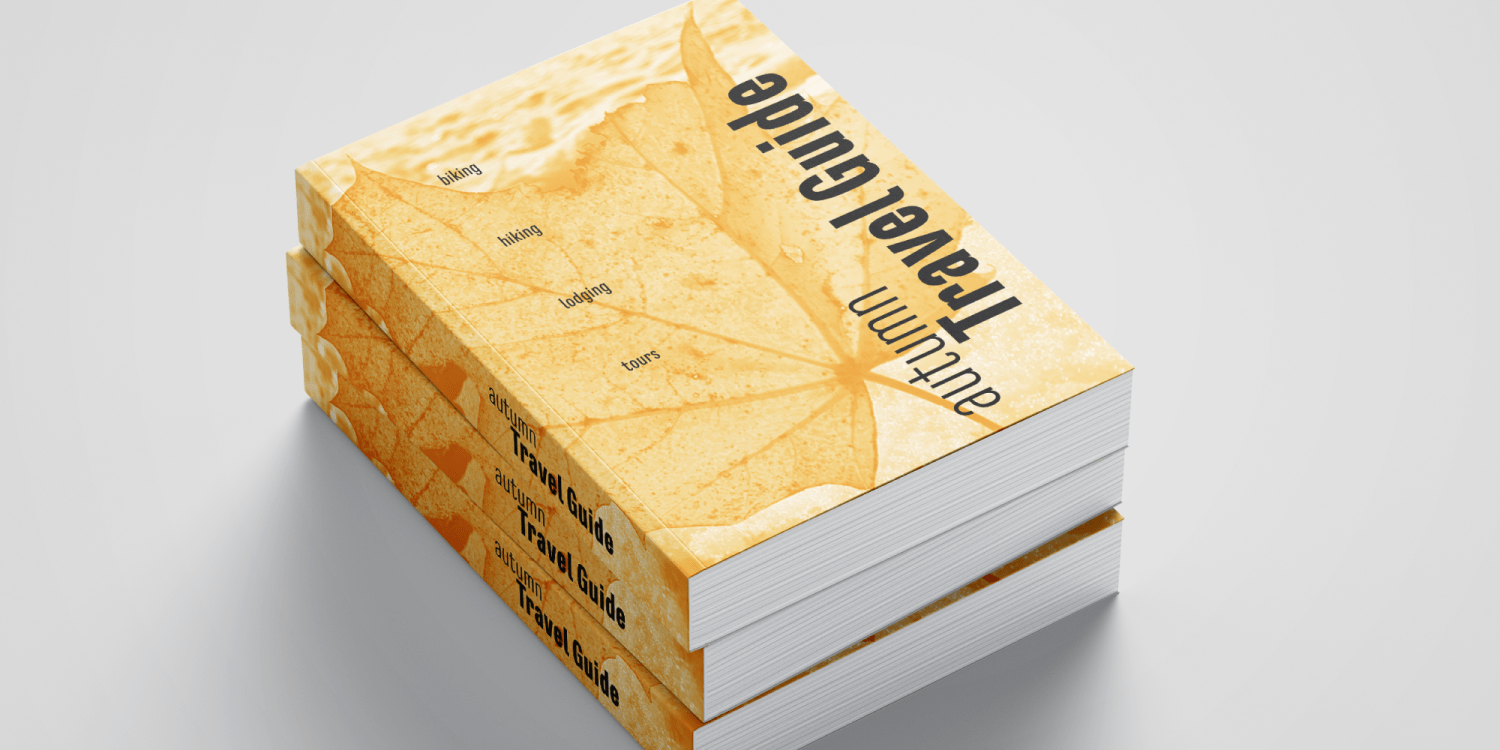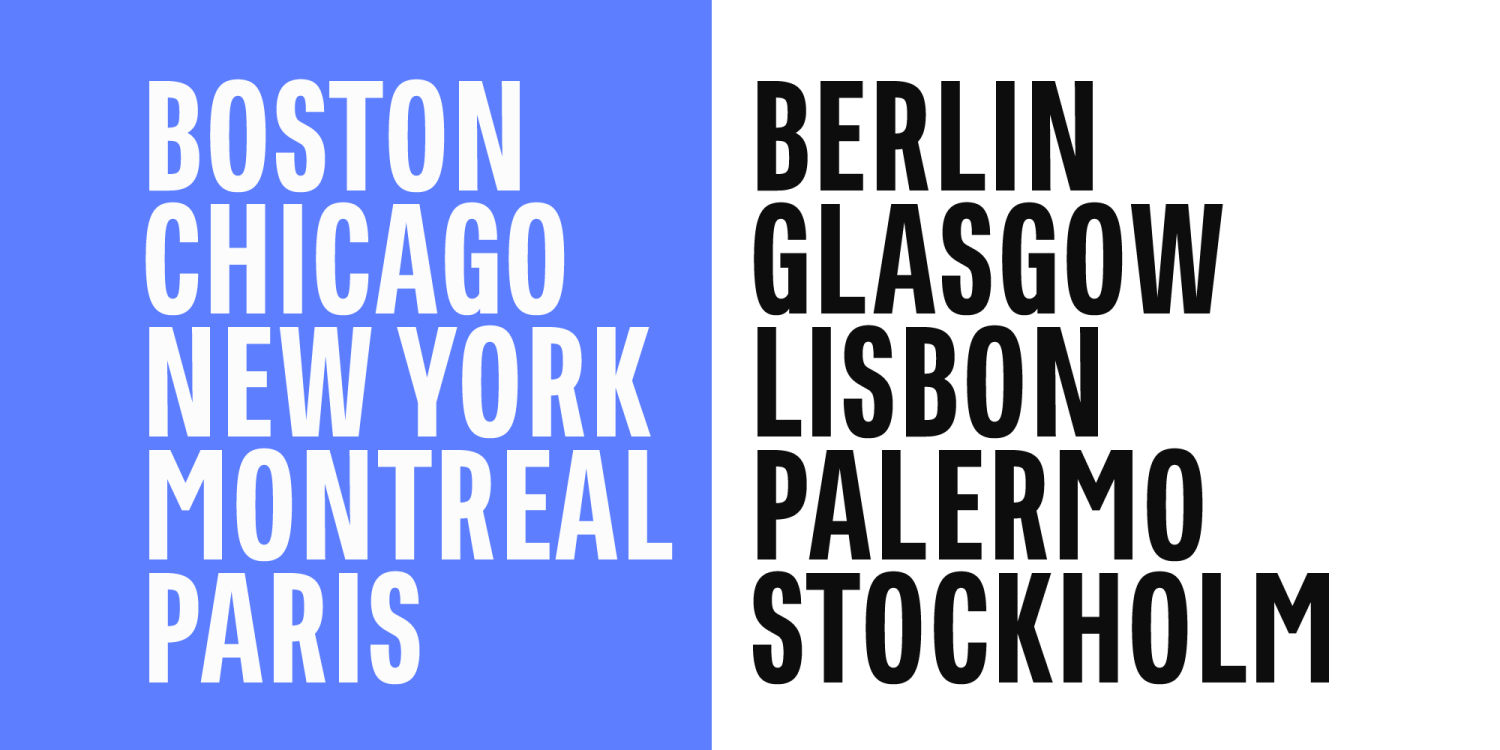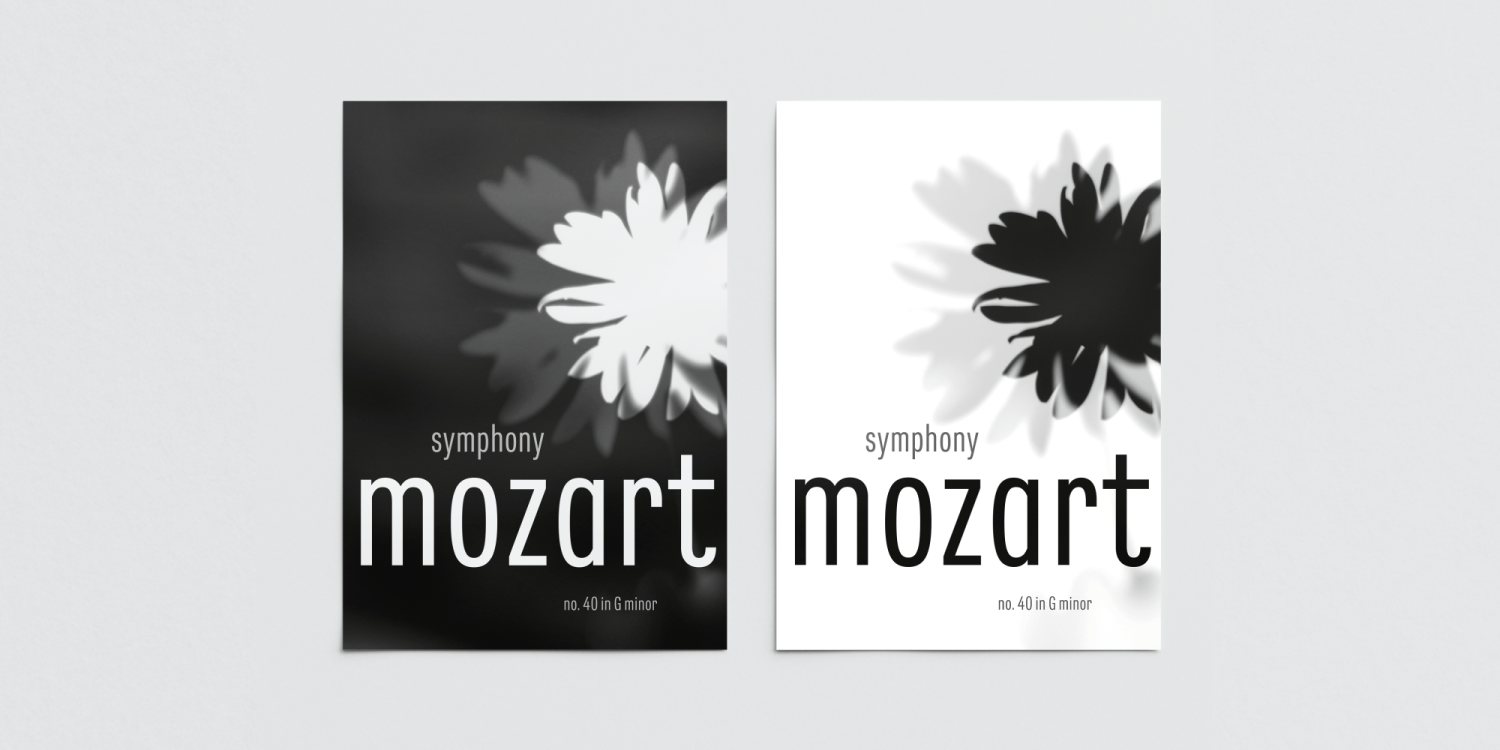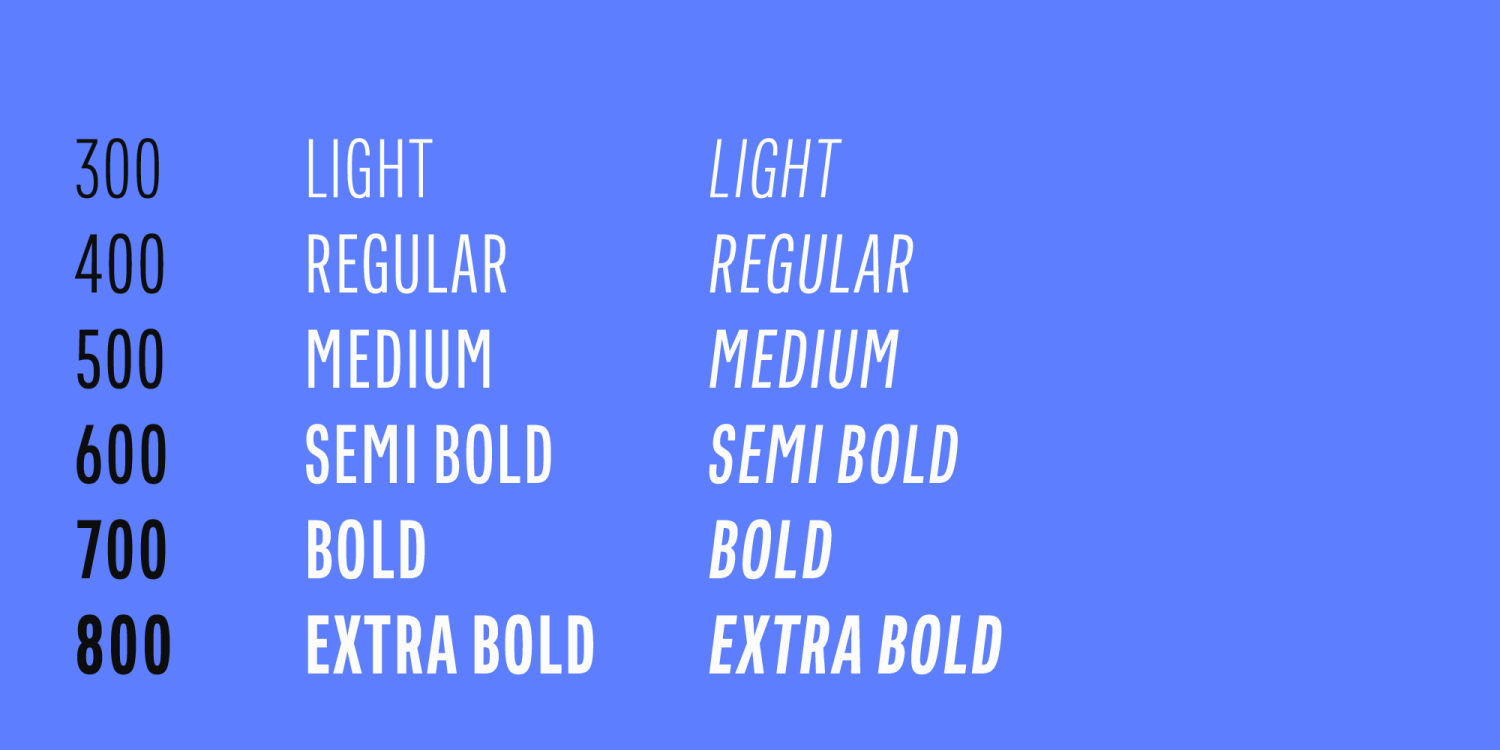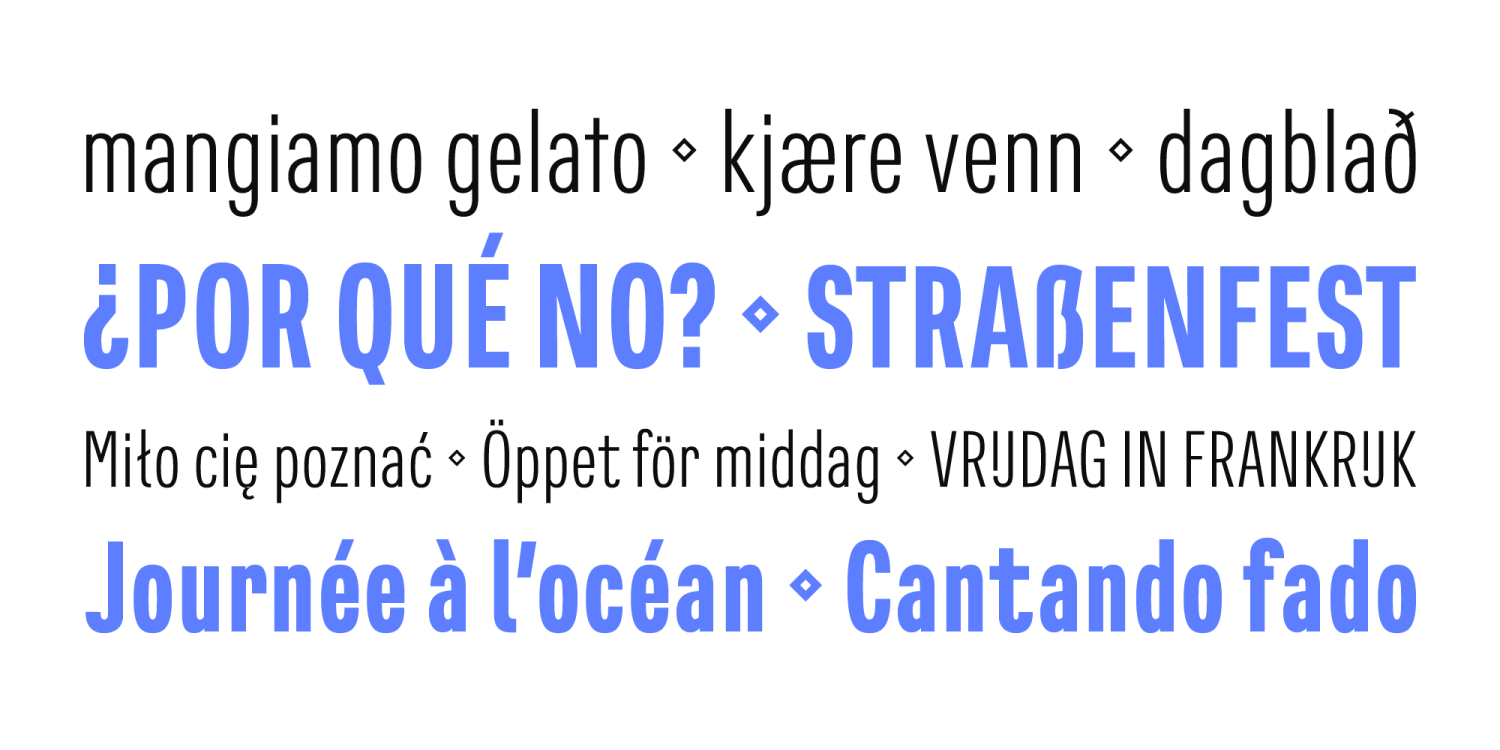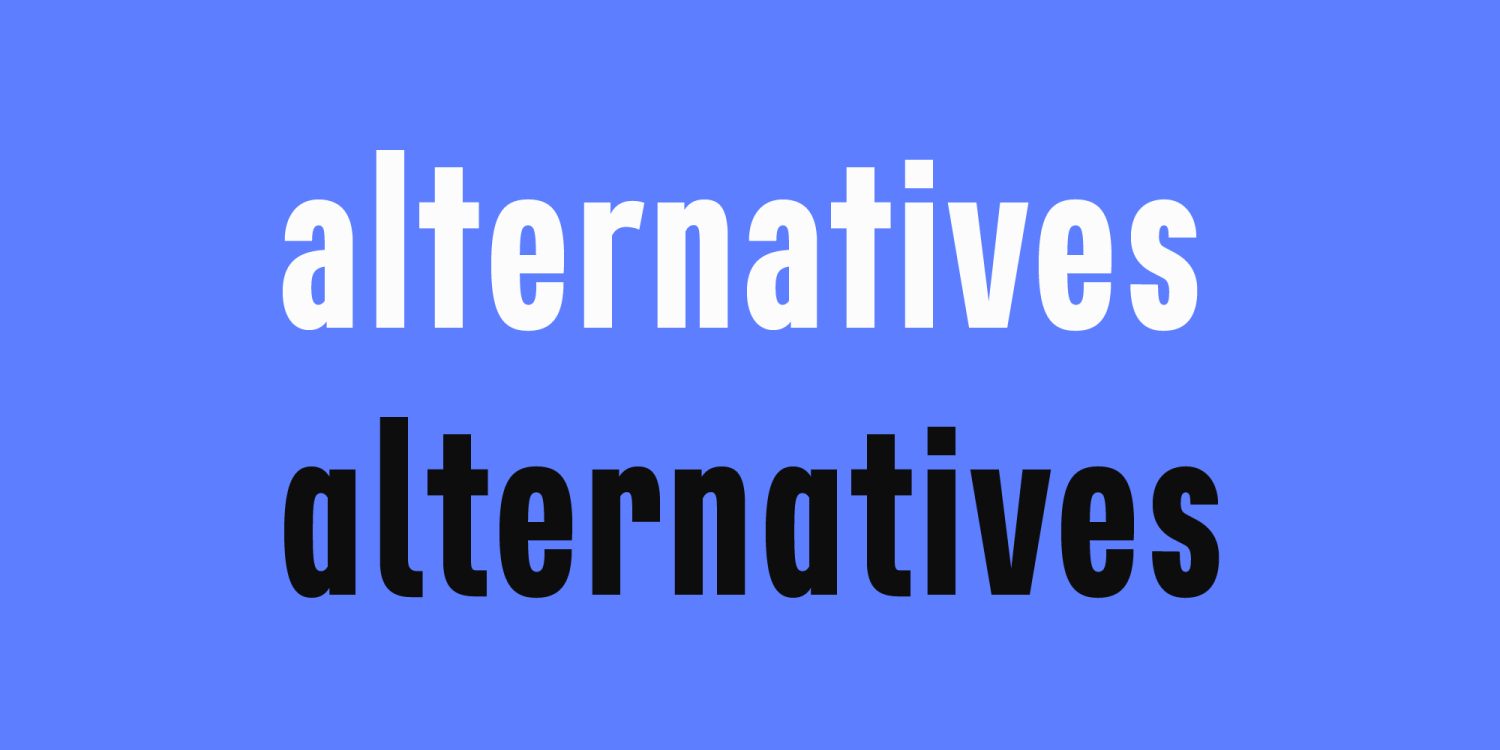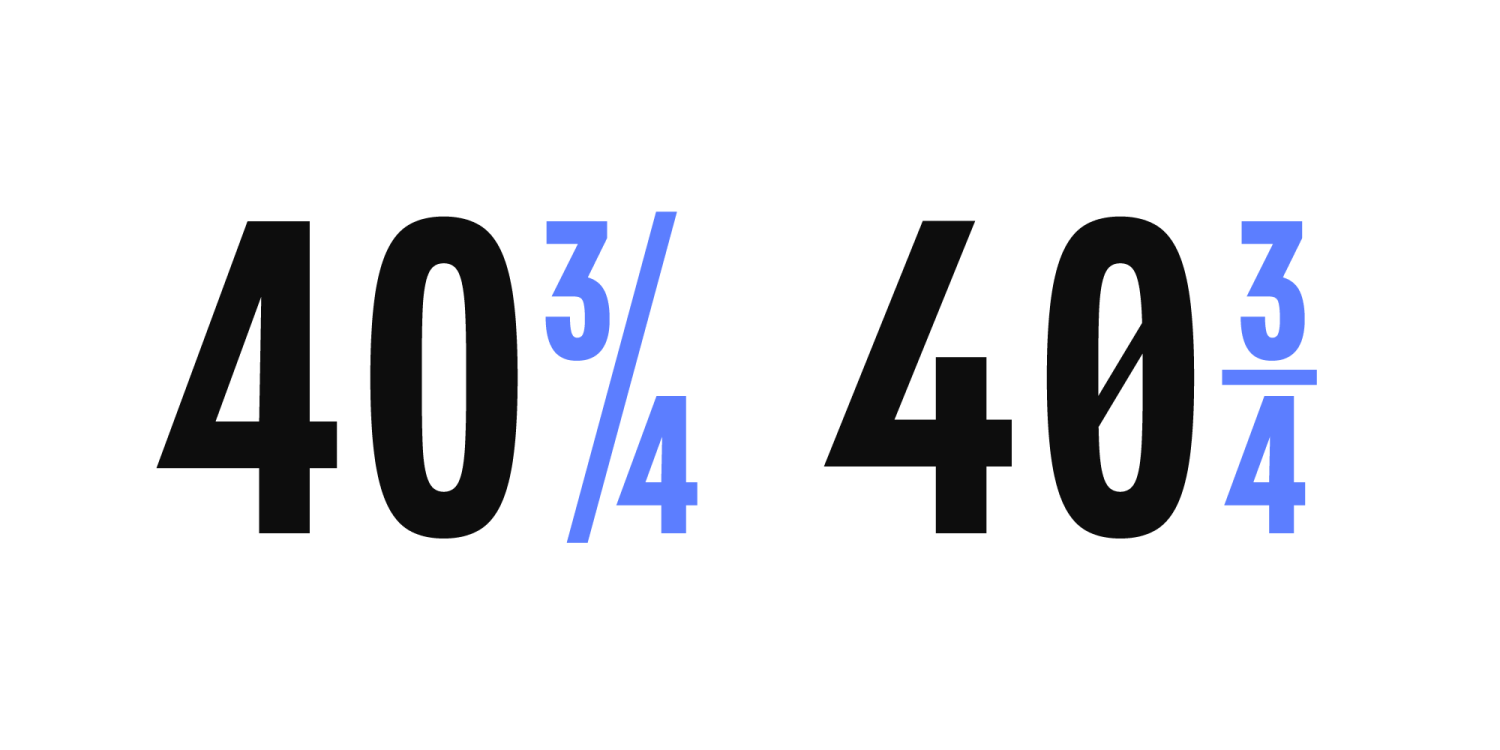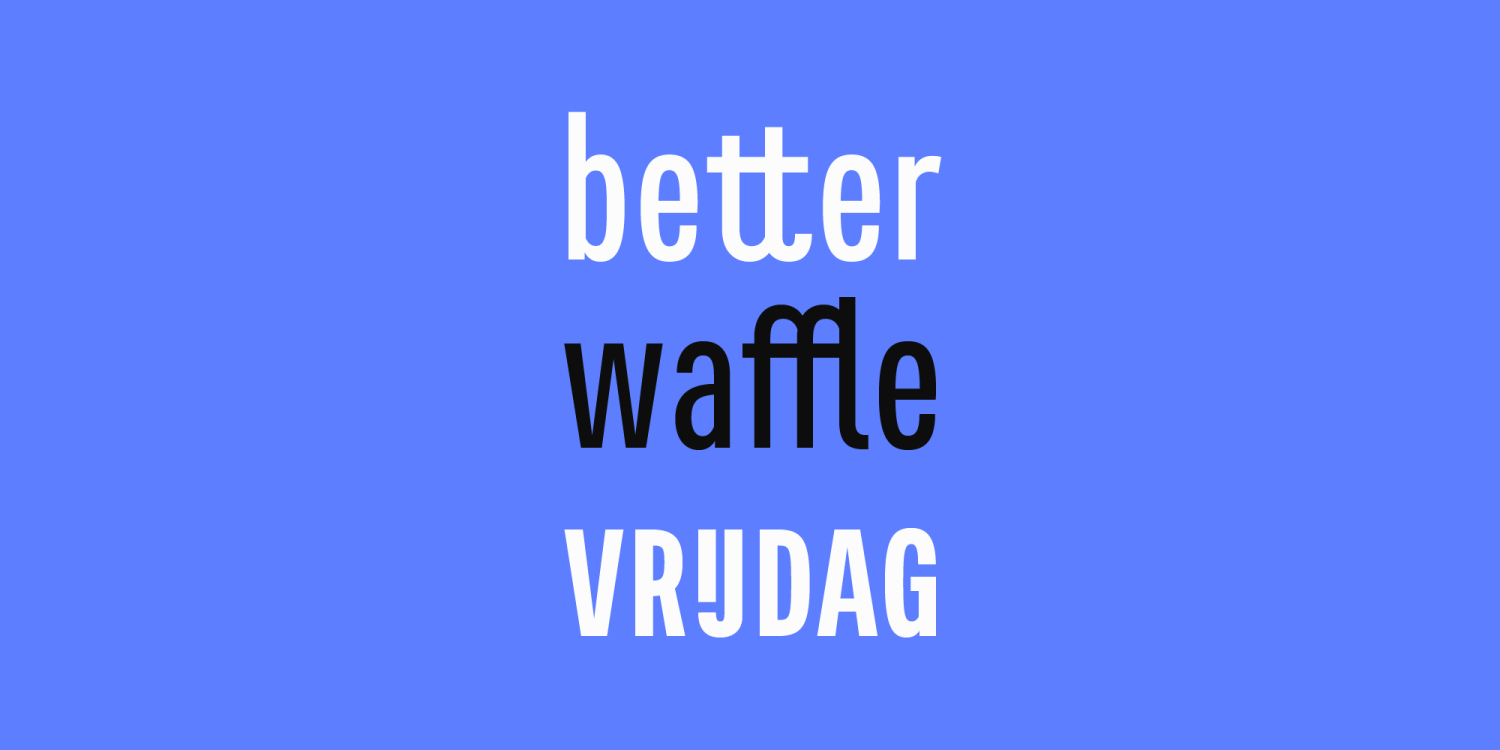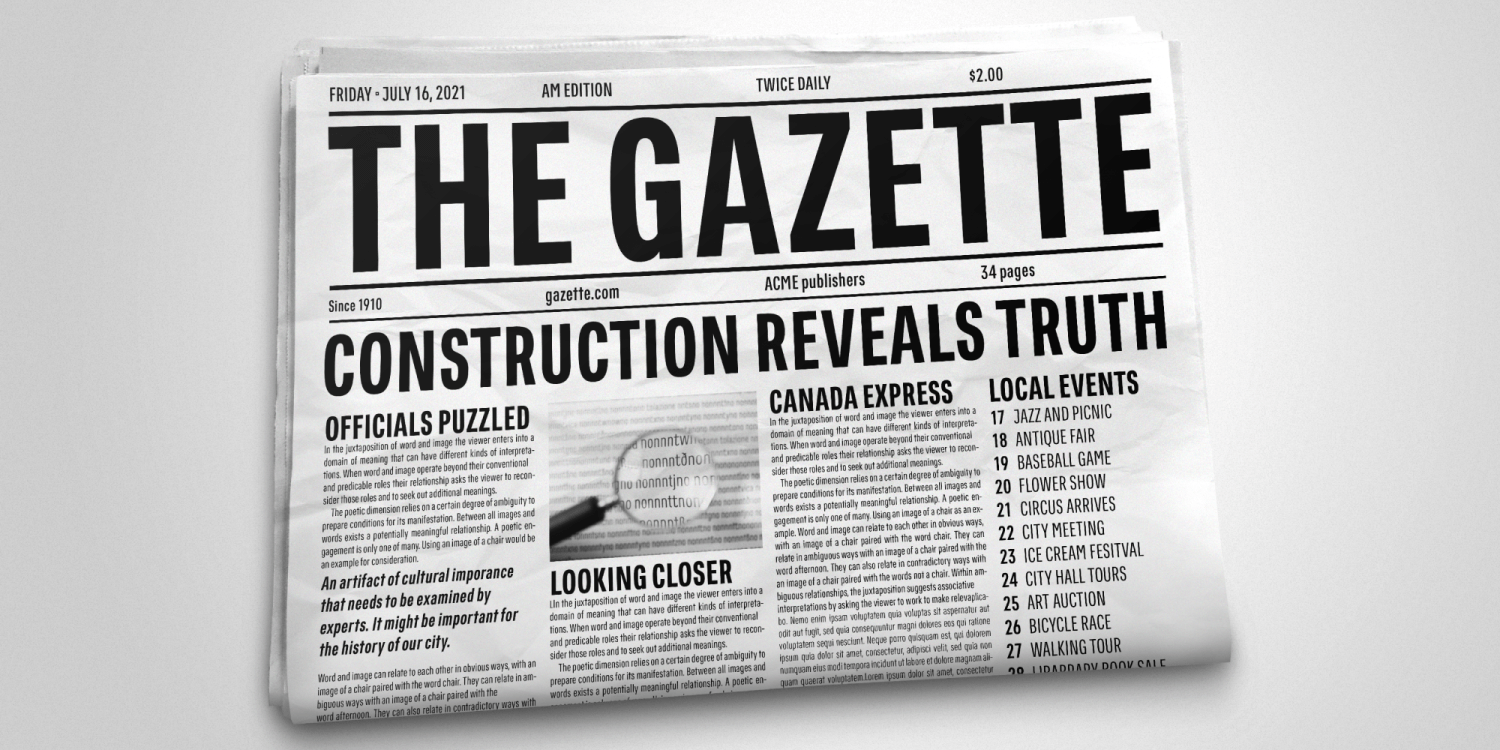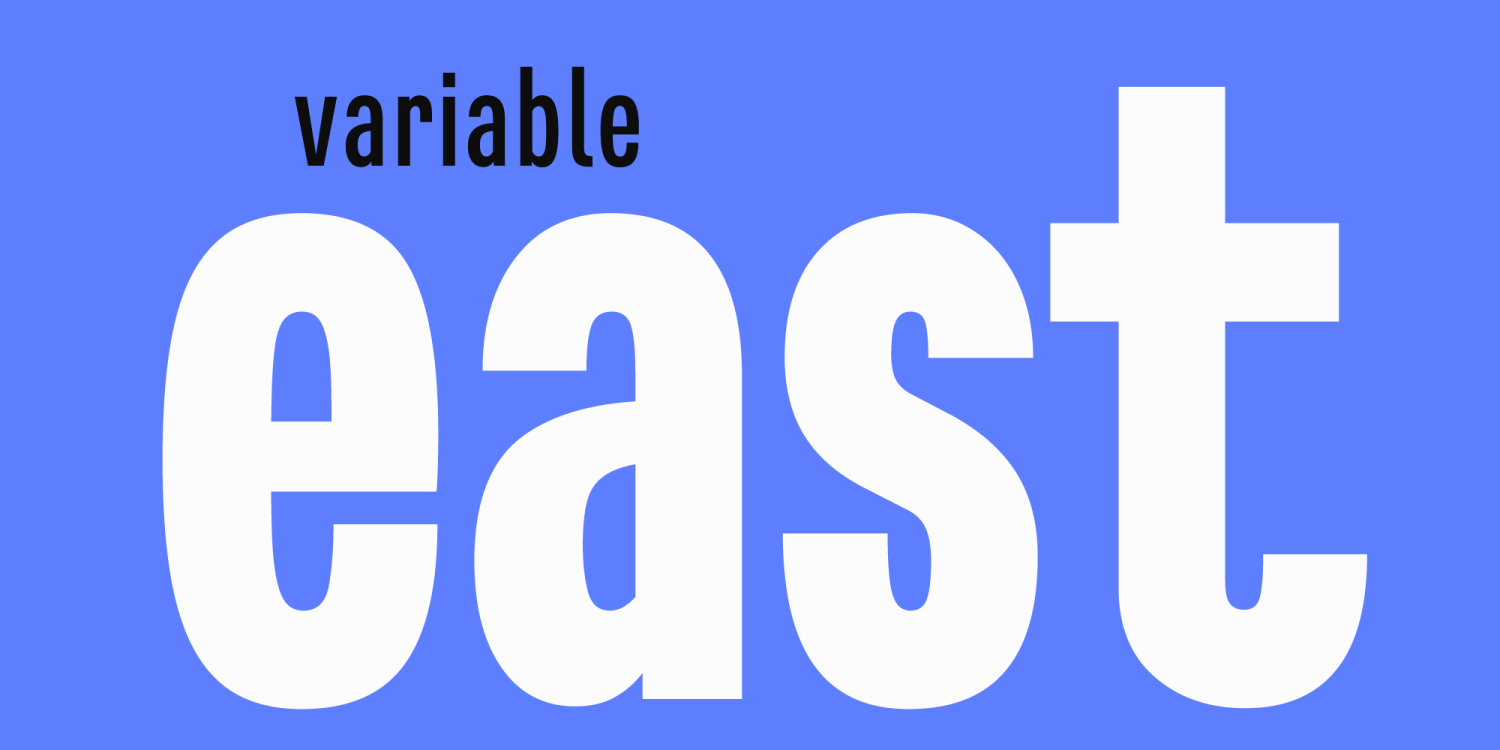
East Variable
About East Variable
East Variable is a condensed sans serif typeface. It is timeless, but with a subtle nostalgia of vintage jazz albums, film titles, newspapers, and signage. The light weight has excellent legibility at small sizes. The Extra Bold weight will capture attention.…